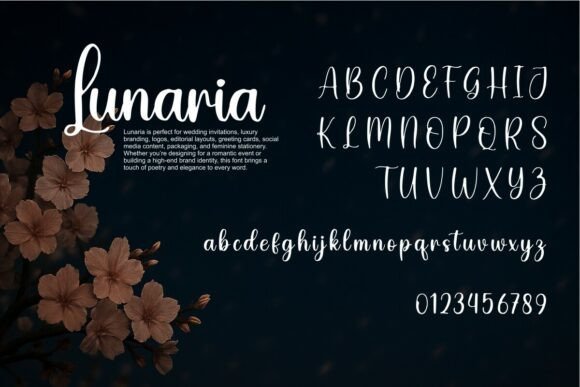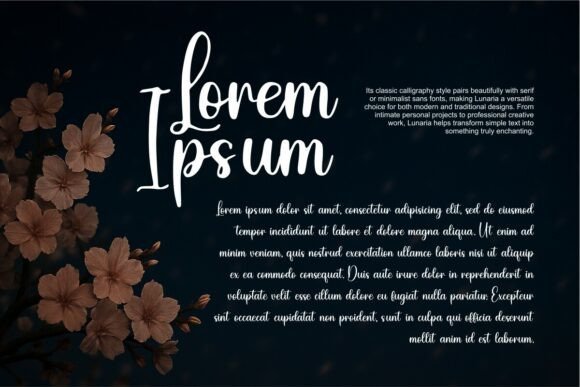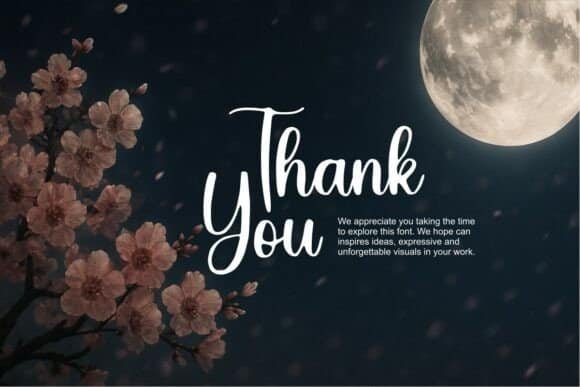
Lunaria is an elegant calligraphy script font inspired by moonlit evenings, delicate blossoms, and the quiet beauty of handwritten art. With its flowing strokes and graceful curves, Lunaria captures a sense of romance, softness, and timeless sophistication.